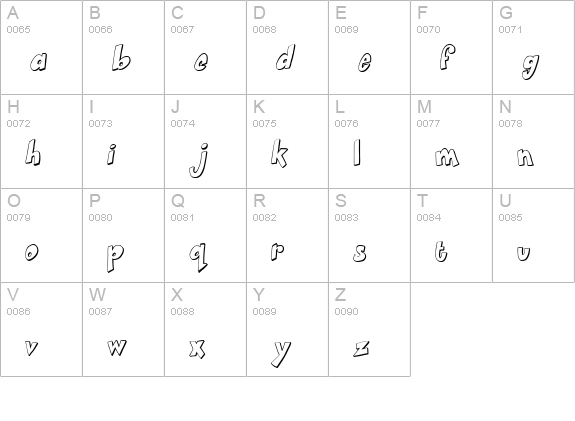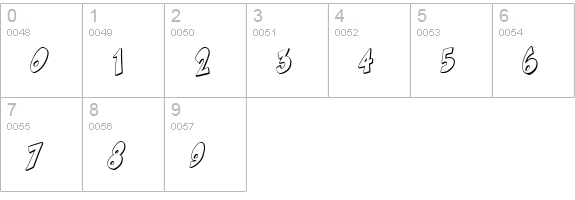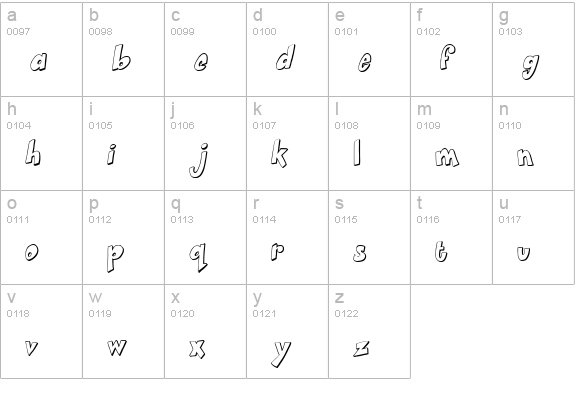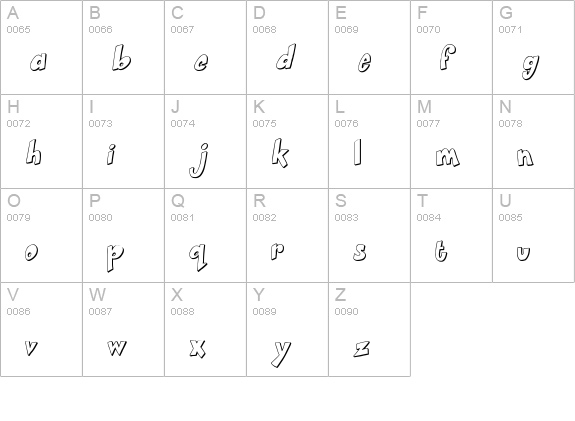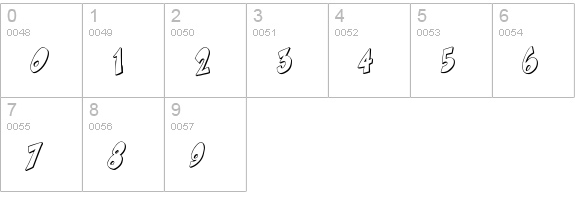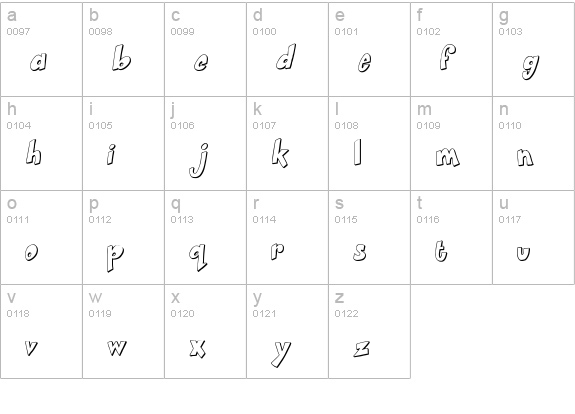
Smartie Font Details
Smartie font is a captivating and versatile typeface that will add a touch of elegance and playfulness to any design project. With its sleek and modern design, this font is perfect for creating eye-catching headlines, stylish logos, and stunning branding materials. What sets Smartie font apart is not only its stunning aesthetic appeal but also the fact that it is available for free. Yes, you read that right! Smartie font is freely available to download at FontsMarket.com, making it accessible to designers, creatives, and enthusiasts alike. Whether you're working on a personal project or a professional assignment, Smartie font will surely elevate your designs to new heights. Its smooth curves and clean lines give it a contemporary and polished look, while its unique character shapes add a touch of personality and charm. With a wide range of weights and styles, Smartie font offers endless possibilities for customization. From bold and impactful to delicate and refined, this font allows you to effortlessly create a cohesive visual identity for any brand or concept. Smartie font is not just visually appealing, but it is also highly legible and easy to read, ensuring that your message is delivered clearly and effectively. Its versatility extends to various design applications, including print materials, digital platforms, and even social media graphics. So why wait? Download Smartie font for free at FontsMarket.com and unlock a world of creative possibilities. Whether you're a seasoned designer or just starting out, this font will undoubtedly become a valuable addition to your font library. Embrace its elegance, embrace its playfulness, and let Smartie font bring your designs to life.